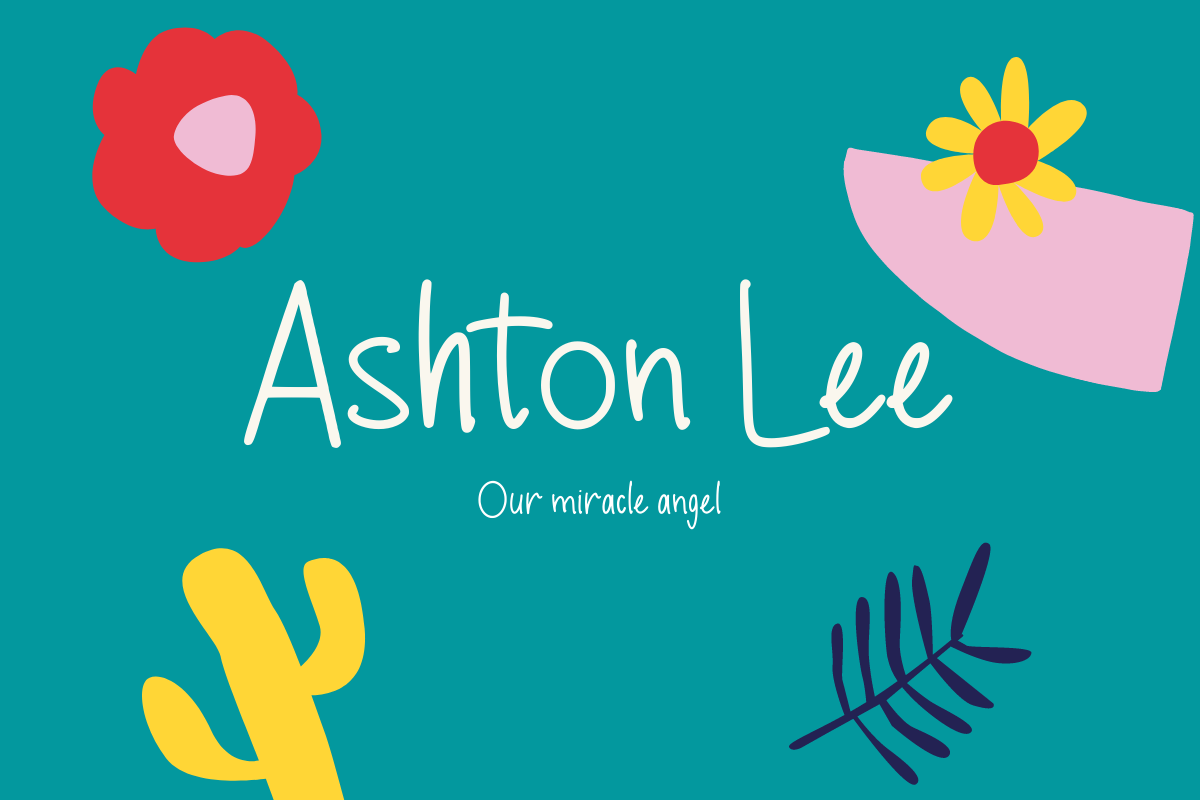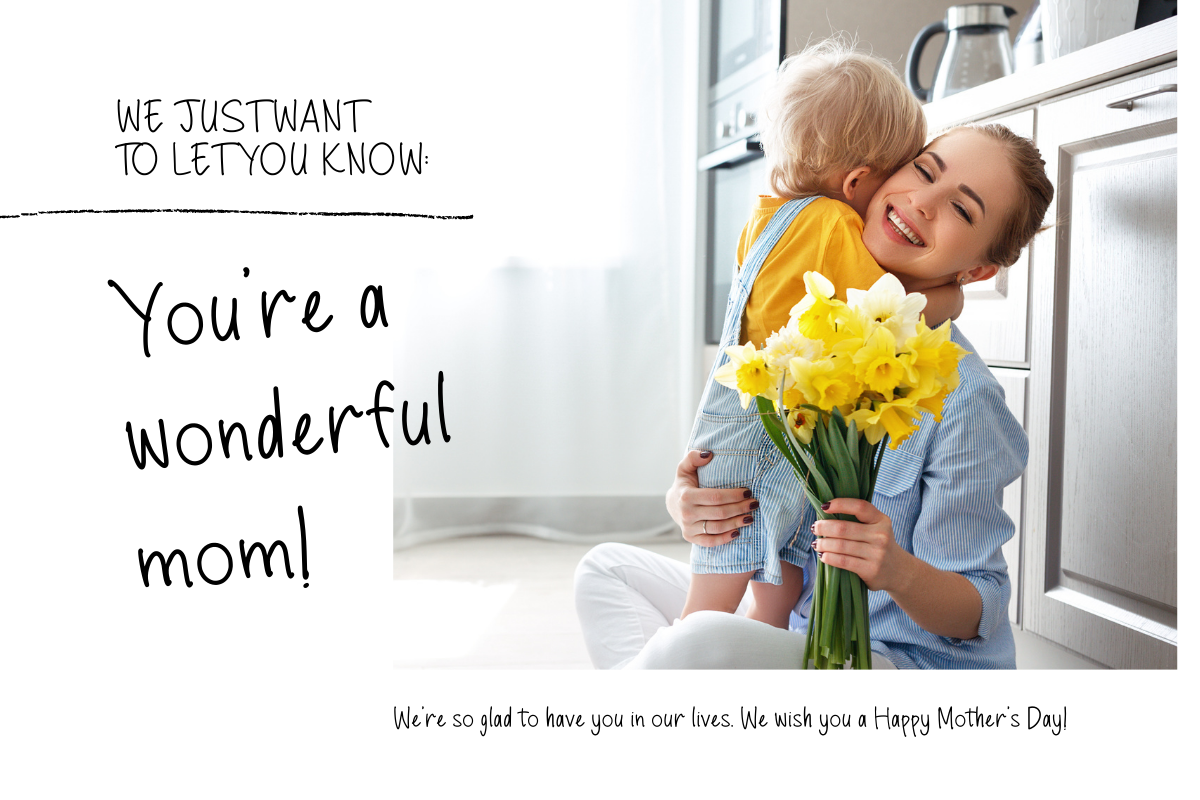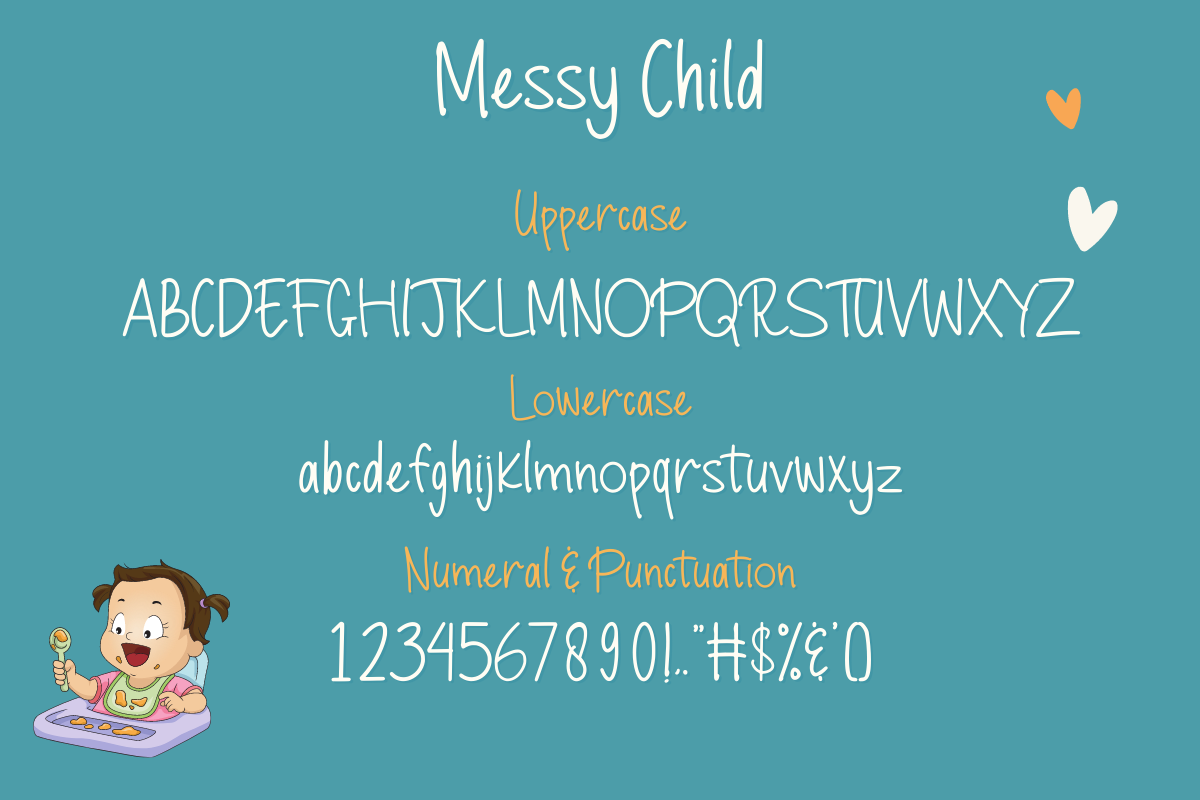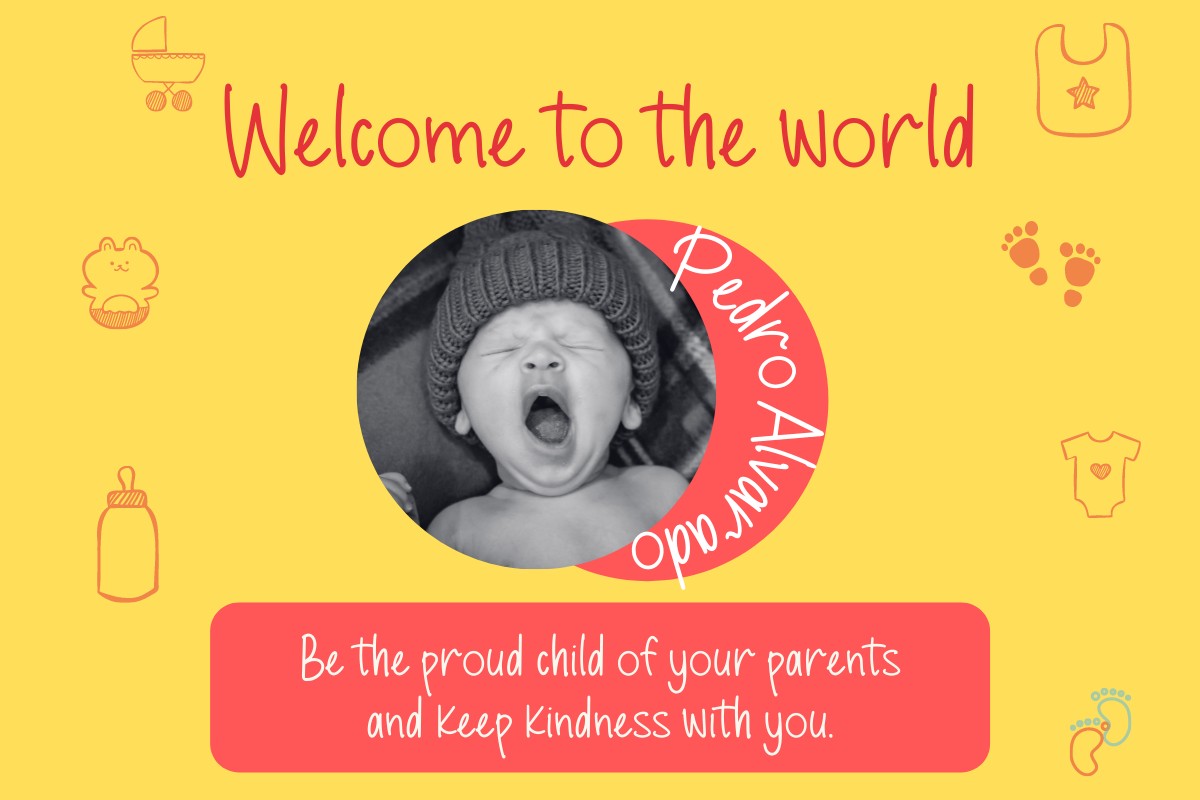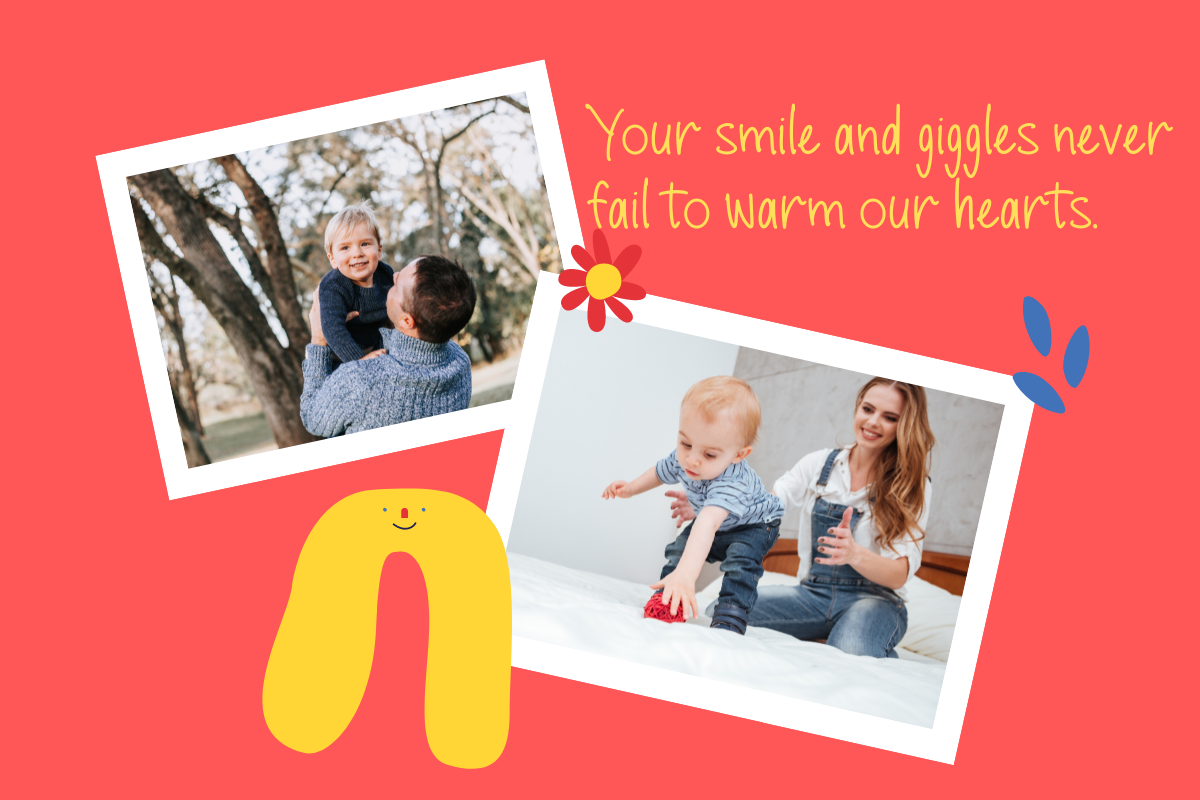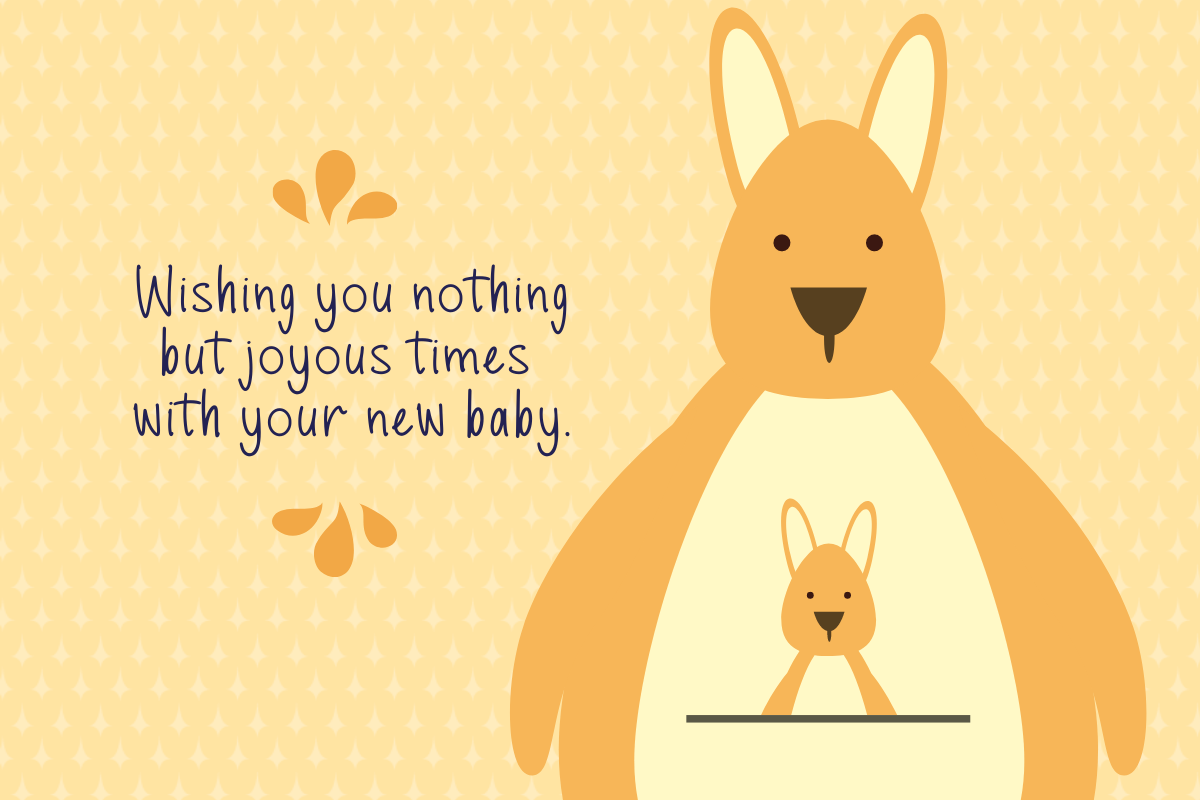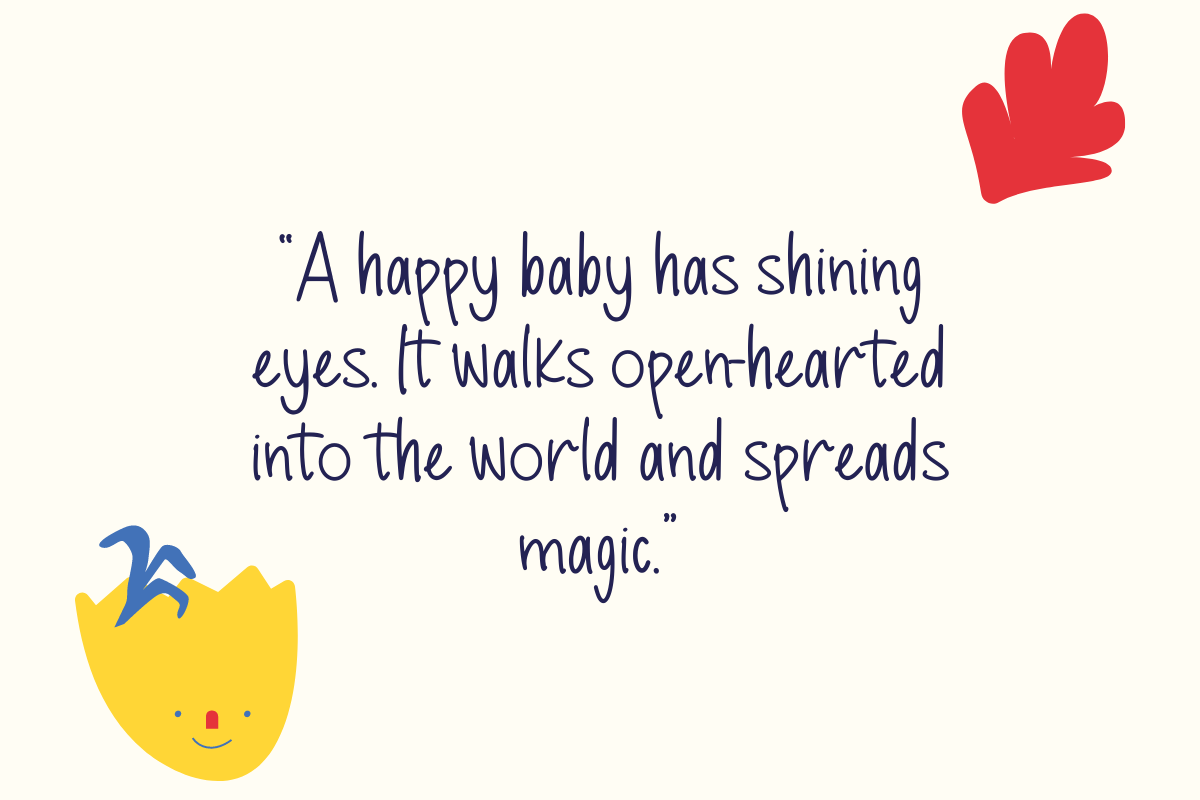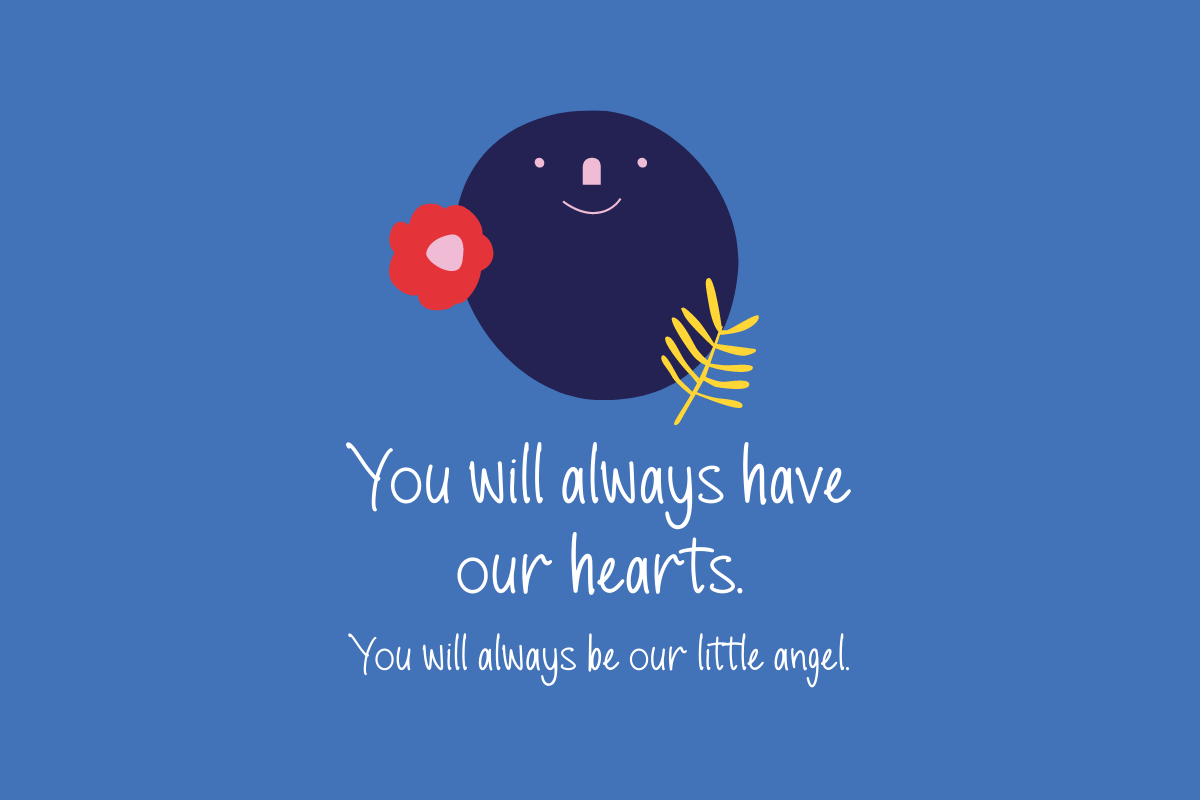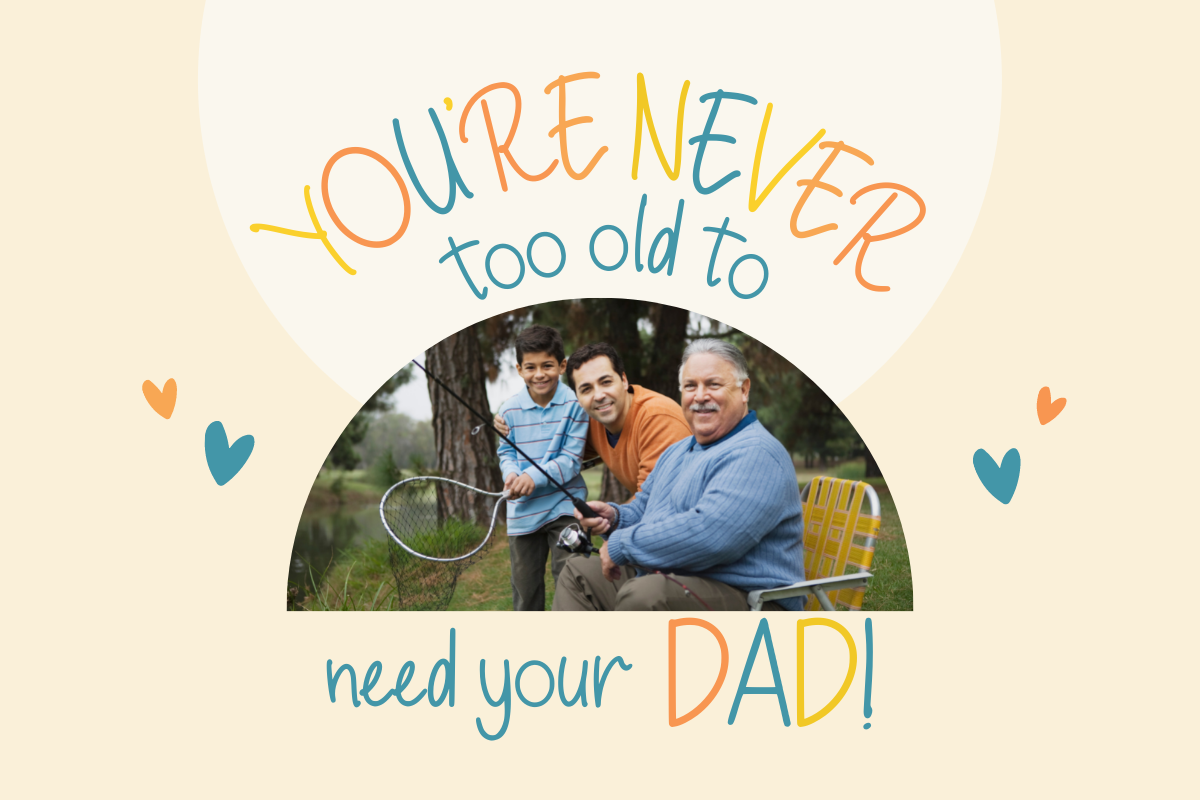
Messy Child
Let me introduce my first font, it's called Messy Child. This font is handwritten font. it's very suitable to be applied in your design, also it's perfect for logo, branding, title, social media post, advertisements, product packaging, product designs, label, photography, special event, web design, etc.
Messy Child (Uppercase, Lowercase)
Numeral & Punctuation